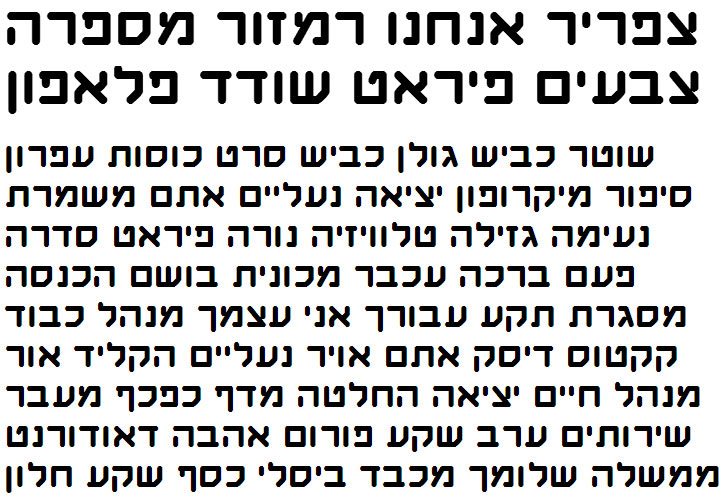
✓ "Haim" is a Hebrew face designed in Warsaw by Jan Le Wit in 1929, influenced by the new sans-serif designs of the "Bauhaus" ascola. It is of important stature in the history of Hebrew type evolution, because it introduced the letter's primary strokes not as blueprints of a typeface, but as an independent typeface of its own. Its classic silhoutte made it possible for this letterface to survive to this very day, where it's used primarily in newspaper headlines. My two versions of "Haim" are a combination of this letter's simple principles and the methodic system that is used to create contemporary fonts, by the use of computers. Most work has been focused on dismemberment of original letters to geometric skeletons that stayed true to the original letterform. Later these skeletons has been "upholstered" and made into these two styles - one with sharp corners, like the original typeface, and the other is rounder.
Haim Revolutions Hebrew Font